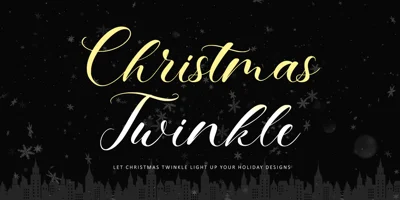
Christmas Twinkle Font
Where Can You Use Christmas Twinkle Font?
This enchanting font shines for:
Holiday greeting cards (perfect for warm Christmas wishes)
Festive packaging (ideal for gifts, cookies and holiday products)
Seasonal social media (makes your posts stand out with holiday magic)
Christmas decorations (great for DIY ornaments and winter crafts)
Why Is Christmas Twinkle Font Exciting?
Christmas Twinkle captures the joyful spirit of the season with its delicate glitter effects and playful curves. Unlike ordinary holiday fonts, it adds a touch of winter wonderland charm to every design while maintaining perfect readability.
Christmas Twinkle Font Family
The complete festive collection includes:
Christmas Twinkle Regular (classic sparkling style)
Christmas Twinkle Bold (extra festive emphasis)
Christmas Twinkle Outline (elegant hollow version)
Christmas Twinkle Snow (with delicate frost details)